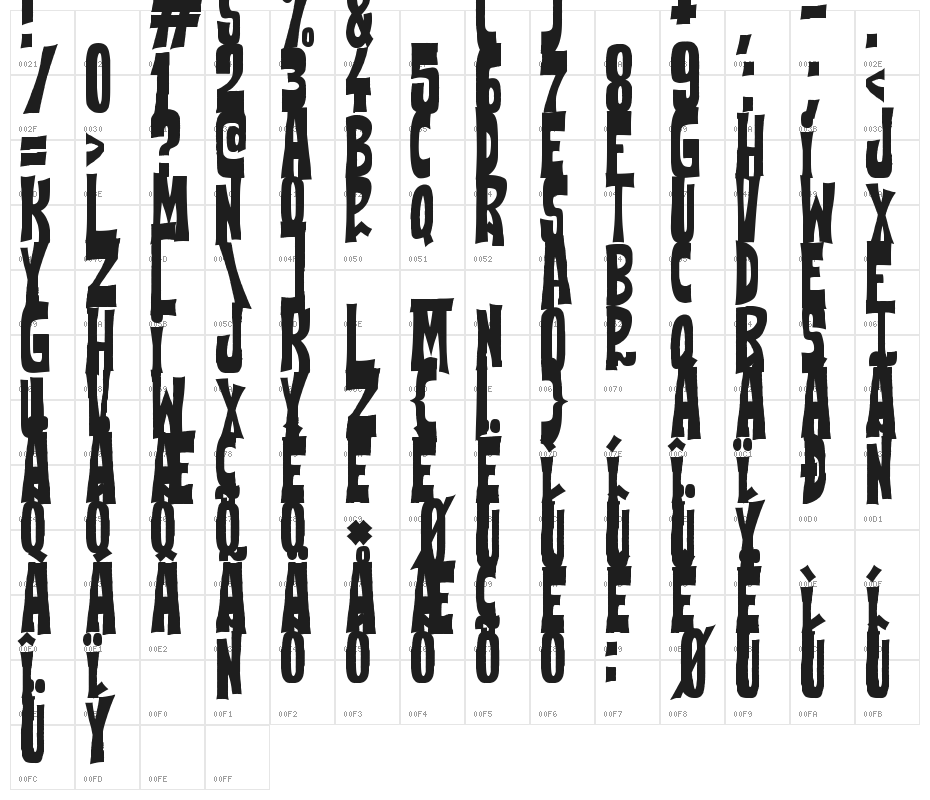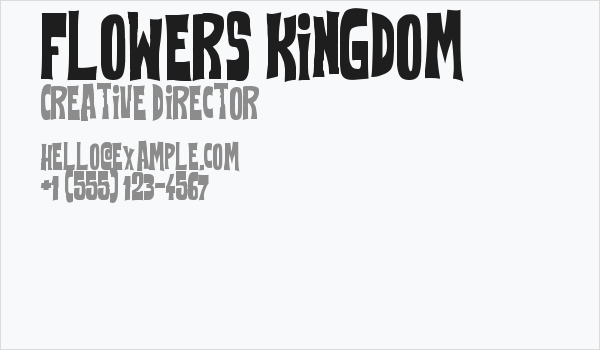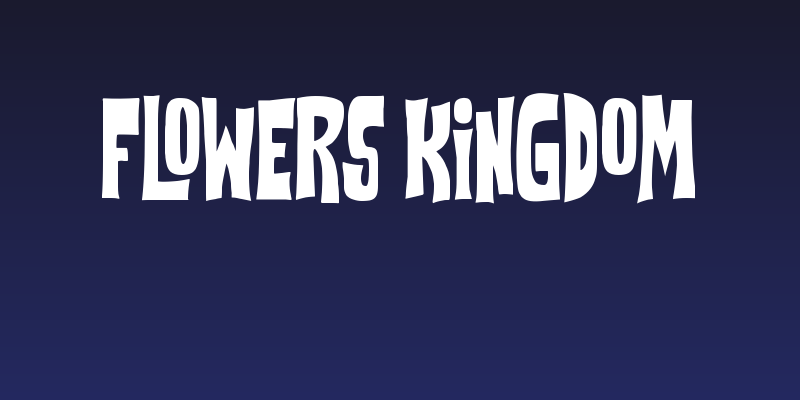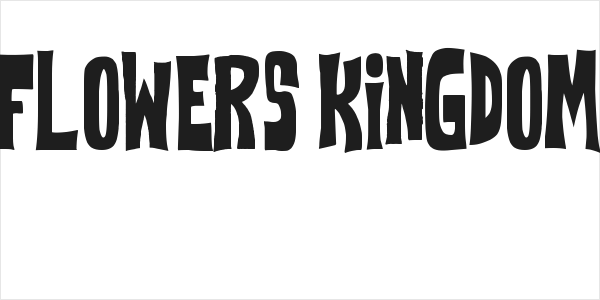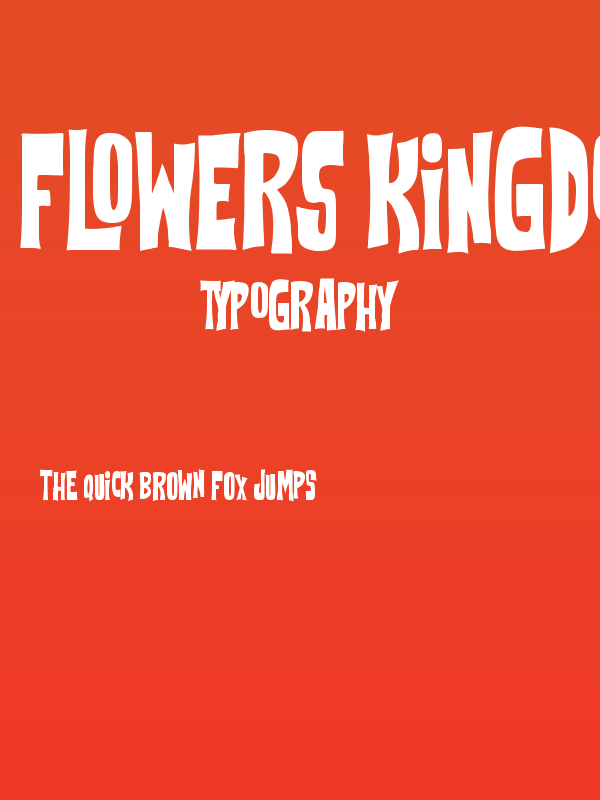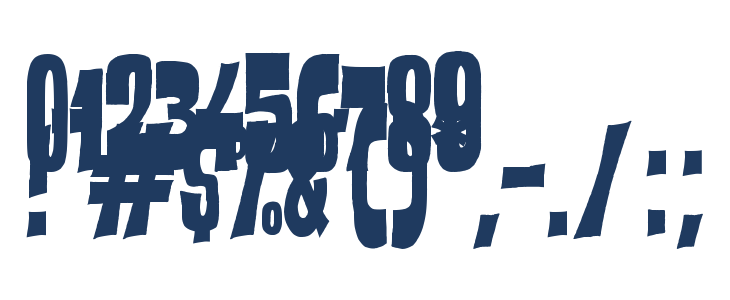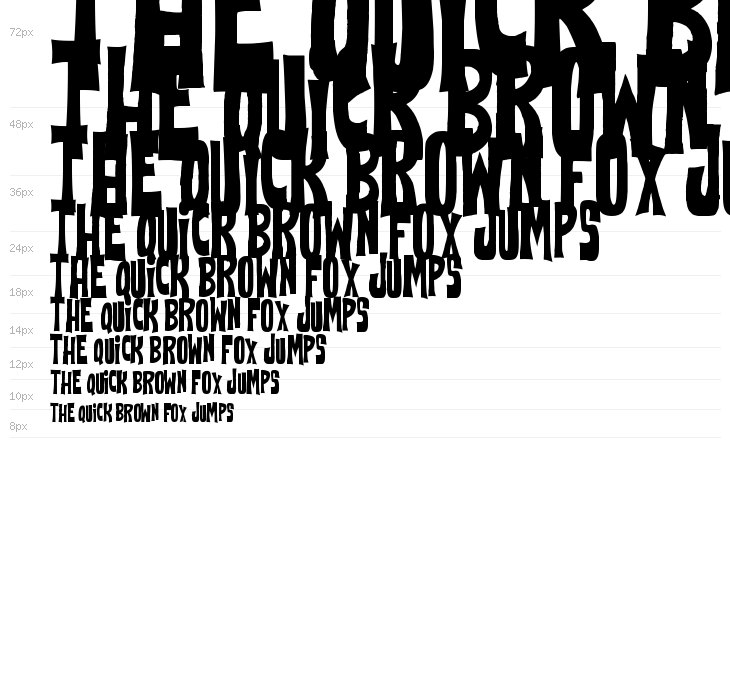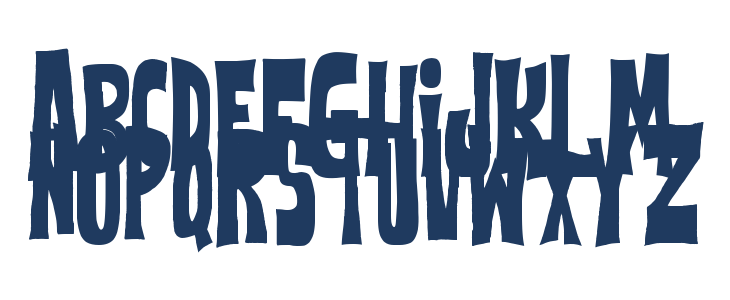
Flowers Kingdom Font
Flowers Kingdom Description
This font features a bold and artistic design with a hand-drawn appearance. The characters are irregular and varied in width, giving it a unique and playful style. The uppercase and lowercase letters maintain a consistent height, while the numbers and special characters follow the same whimsical design. The strokes are thick and uneven, adding to the font's distinctive and creative look. This font is ideal for projects that require a bold and eye-catching display, such as posters, album covers, or artistic branding.
| Proposed Projects | Ideal for posters, album covers, artistic branding, and creative projects. |